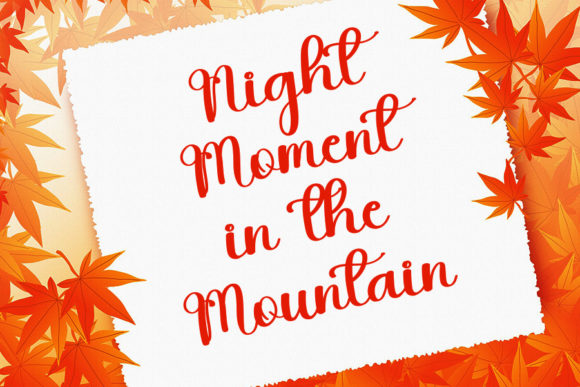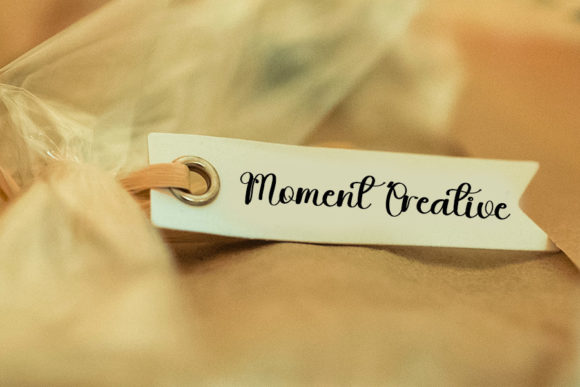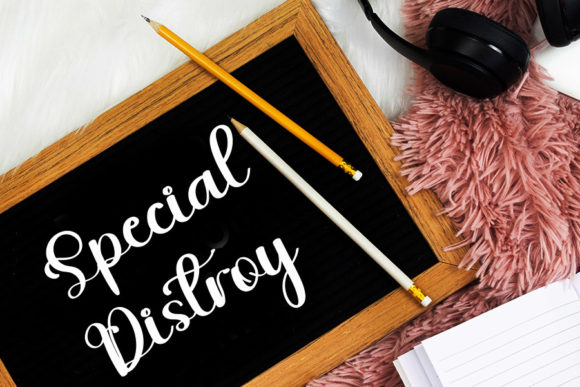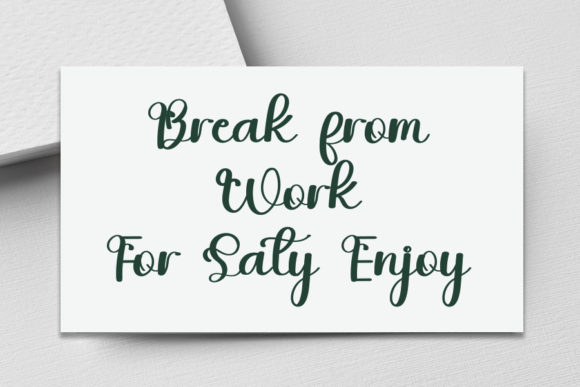
Introduction to Coffee Todays Font
Coffee Todays is a lovely and delicate script font that exudes elegance and class.
This font was particularly crafted for those who need a beautiful and refreshing look to their designs .
Key Features of Coffee Todays Font
Why Choose Coffee Todays Font?
Coffee Todays Font offers exceptional quality and versatility, making it a valuable addition to your design toolkit. Whether you’re creating for personal projects or commercial use, Coffee Todays Font delivers professional results.